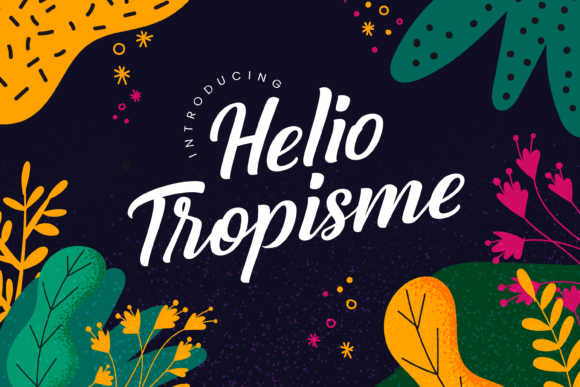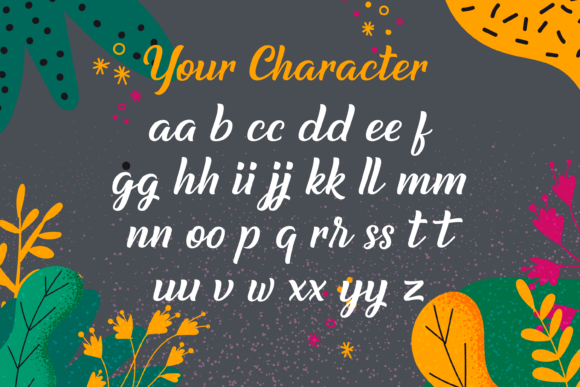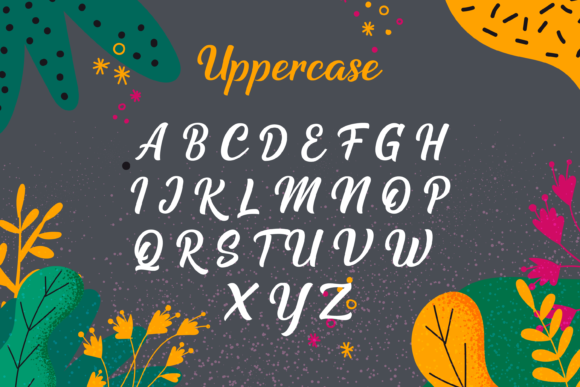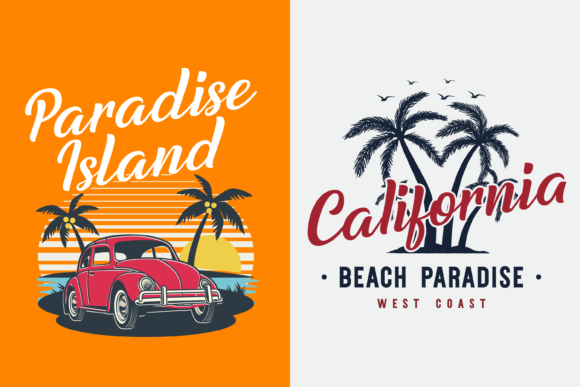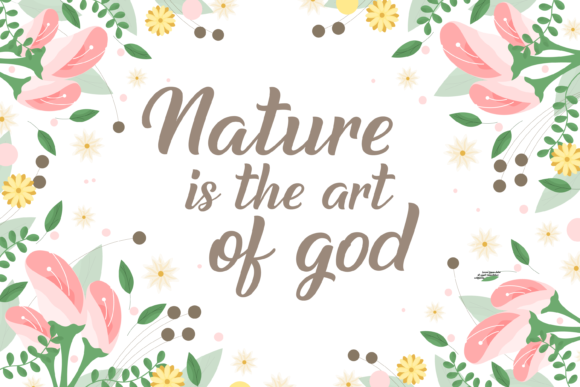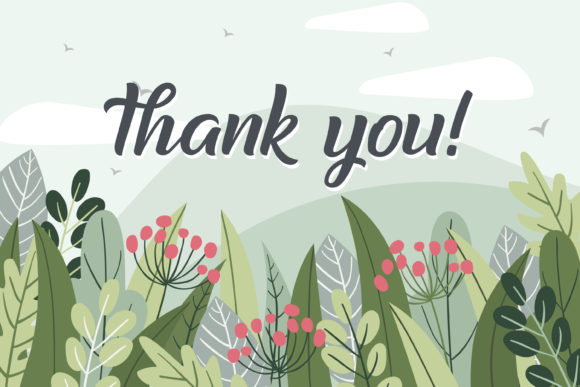
Helio Tropisme Font
About Helio Tropisme Font
Helio Tropisme feels charming and vibrant and will turn any design project into a true standout. Get inspired by its unique charm!